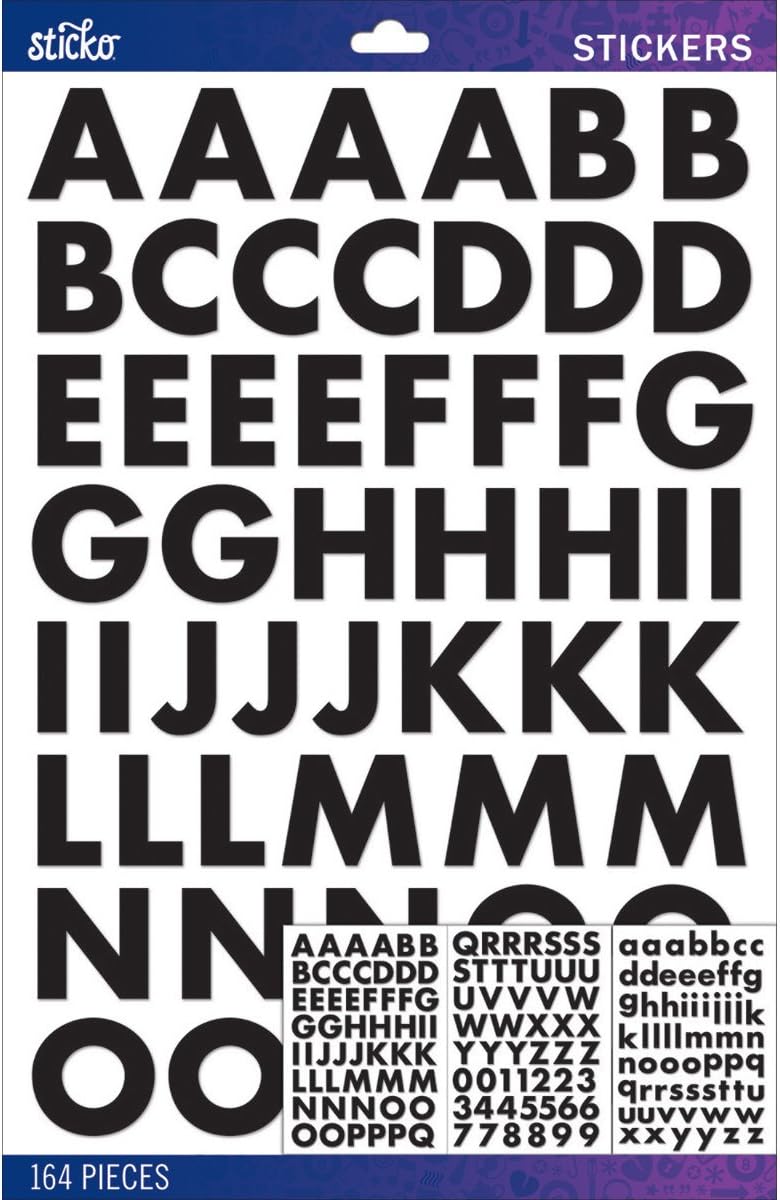
Futura Bold Font
Google Fonts Search we suggest free alternatives to expensive fonts Try PRO Membership for FREE!. The Futura font is composed of simple geometric shapes – circles, triangles, and squares The most important feature of the font is that it focuses on practicality and functionality instead of on form and unnecessary addons. Futura’s long ascenders and descenders benefit from generous line spacing The range of weights and styles make it a versatile family Futura is timelessly modern;.
We have 13 free futura fonts to offer for direct downloading · 1001 Fonts is your favorite site for free fonts since 01. Futuracondensedboldttf TTF TrueType — 193 30 Kb. Futura® font family Designed by Paul Renner in 1936 First presented by the Bauer Type Foundry in 1928, Futura is commonly considered the major typeface development to come out of the Constructivist orientation of the Bauhaus movement in Germany.
File name Font Format Version Glyphs Size;. What fonts are similar to Futura® Bold?. Book font was released in 1932 Book Oblique font was released in 1939 Extra Bold font was designed by Edwin W Shaar in 1952 Extra Bold Italic font was designed in 1955 by Edwin W Shaar and Tommy Thompson Futura has an appearance of efficiency and forwardness.
Preview Your Fonts Your headline is in Futura This is a sub heading in Futura This paragraph is in Futura Keep reading for how to use the buttons to the left Change your settings, and choose what section you want the font to apply to Once you are pleased with the settings for that section you can click save. In 1928 it was striking, tasteful, radical — and today it continues to be a popular typographic choice to express strength, elegance, and conceptual clarity NEW the new Futura W1G versions features a PanEuropean character set for international communications. Font FuturaBold Regular Font family FuturaBold Font size 49KB Format download font TTF(TrueType) Supported languages English, English United States See more Views Downloads 318 Content 1 Preview;.
Buy Futura Next font from Neufville Digital on Fontscom. Futura Bold Font by URW Type Foundry Cookie Notice We use cookies to enable an improved browsing experience, and to share information with our marketing partners. Futura Bold Font Free This font has ability to enhance the beauty of design and increase legibility of your design and artwork The Futura comes with various weights and styles Among its font families Futura Bold is a popular weight that can be used in various design objects.
Download Futura ExtraBoldTrueType font Download 186,286 Free fonts at ufontscom. In 1928 it was striking, tasteful, radical — and today it continues to be a popular typographic choice to express strength, elegance, and conceptual clarity NEW the new Futura W1G versions features a PanEuropean character set for international communications. Kabel and Futura are birds of a feather, and both fonts seem to have been fledged between 1927 and 1930 Kabel was designed by Rudolph Koch for Klingspor, while Futura was designed by Paul Renner for Bauer Although it started life with some very eccentric letters, particularly 'a' and 'g', the lowercase alphabet of Futura is now a shade less eccentric and more polished.